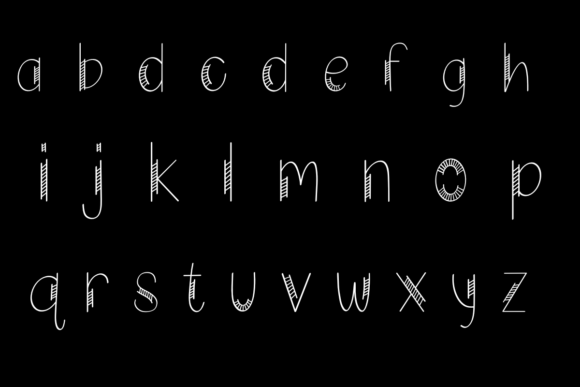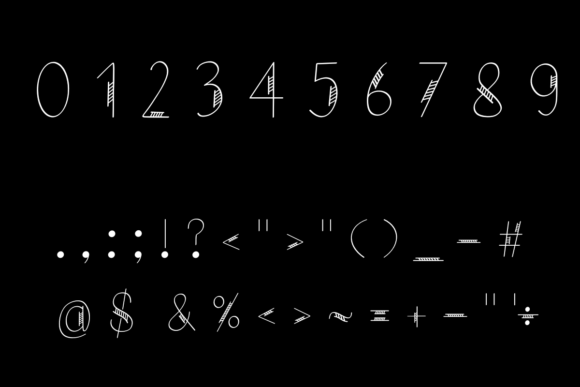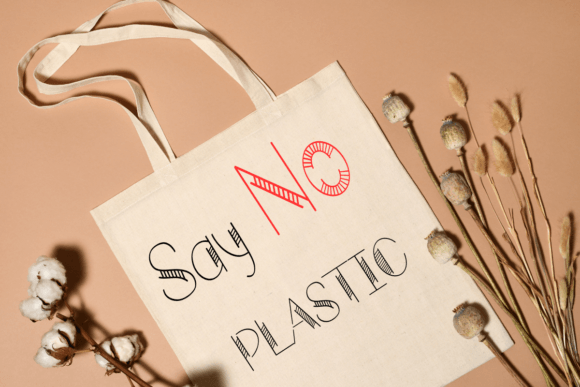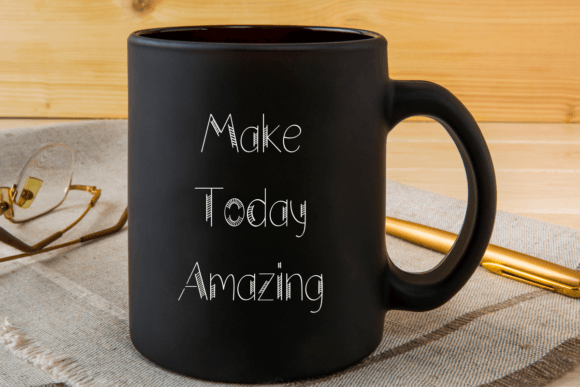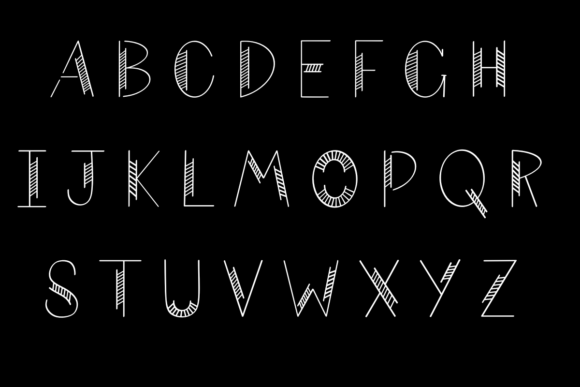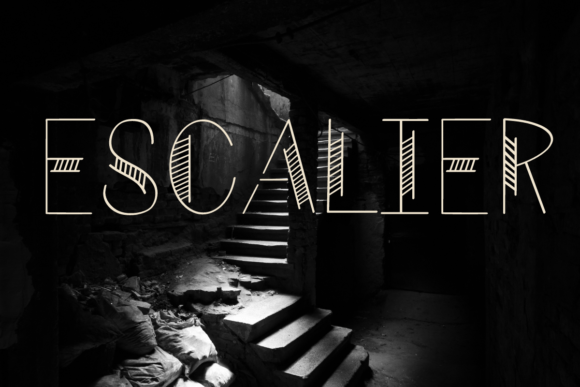
Discover the Fun and Playful Escalier Font
Are you tired of using the same old fonts for your kids’ activities, school projects, or clothing designs? Look no further than the Escalier Font! This cool, unique, and attractive decorative font is sure to add a touch of fun and authenticity to any design. In this article, we’ll dive into the world of Escalier Font and explore its features, benefits, and uses.
What is Escalier Font?
Escalier Font is a decorative font that stands out from the crowd with its playful and whimsical design. Its unique and attractive appearance makes it perfect for designs that require a fun and youthful touch. Whether you’re creating a kids’ activity sheet, a school project, or a clothing design, Escalier Font is sure to add a burst of energy and excitement.
Key Features of Escalier Font
- Unique and Attractive Design: Escalier Font boasts a one-of-a-kind design that is sure to grab attention.
- Fun and Playful: This font embodies the spirit of fun and playfulness, making it perfect for kids’ designs.
- Versatile: Escalier Font can be used for a wide range of designs, from kids’ activities to clothing designs.
- Easy to Read: Despite its decorative nature, Escalier Font is easy to read and understand.
Benefits of Using Escalier Font
So, why choose Escalier Font for your designs? Here are just a few benefits:
- Adds a Touch of Fun: Escalier Font adds a playful touch to any design, making it perfect for kids’ projects.
- Authentic Look: This font gives your designs an authentic and unique look that sets them apart.
- Increases Engagement: The playful design of Escalier Font is sure to capture the attention of your audience and increase engagement.
Uses of Escalier Font
Escalier Font is a versatile font that can be used for a wide range of designs, including:
- Kids’ Activities: Use Escalier Font to create fun and engaging kids’ activity sheets, such as coloring pages, puzzles, and games.
- School Projects: Add a touch of fun and creativity to school projects, such as posters, presentations, and reports.
- Clothing Designs: Use Escalier Font to create fun and playful designs for kids’ clothing, such as t-shirts, hoodies, and hats.
- Party Decorations: Create fun and festive party decorations, such as banners, invitations, and party hats, using Escalier Font.
Tips for Using Escalier Font
Here are a few tips for using Escalier Font effectively:
- Use it Sparingly: Use Escalier Font sparingly to add a touch of fun and playfulness to your designs.
- Pair it with Other Fonts: Pair Escalier Font with other fonts to create a unique and visually appealing design.
- Experiment with Colors: Experiment with different colors to add an extra touch of fun and creativity to your designs.
| Font Name | Escalier Font |
| Author | Petal Pixels |
In conclusion, Escalier Font is a cool, unique, and attractive decorative font that is perfect for kids’ activities, school projects, and clothing designs. Its fun and playful design makes it a great choice for designers and crafters looking to add a touch of authenticity and excitement to their designs. With its versatility, ease of use, and range of benefits, Escalier Font is sure to become a favorite among designers and crafters.